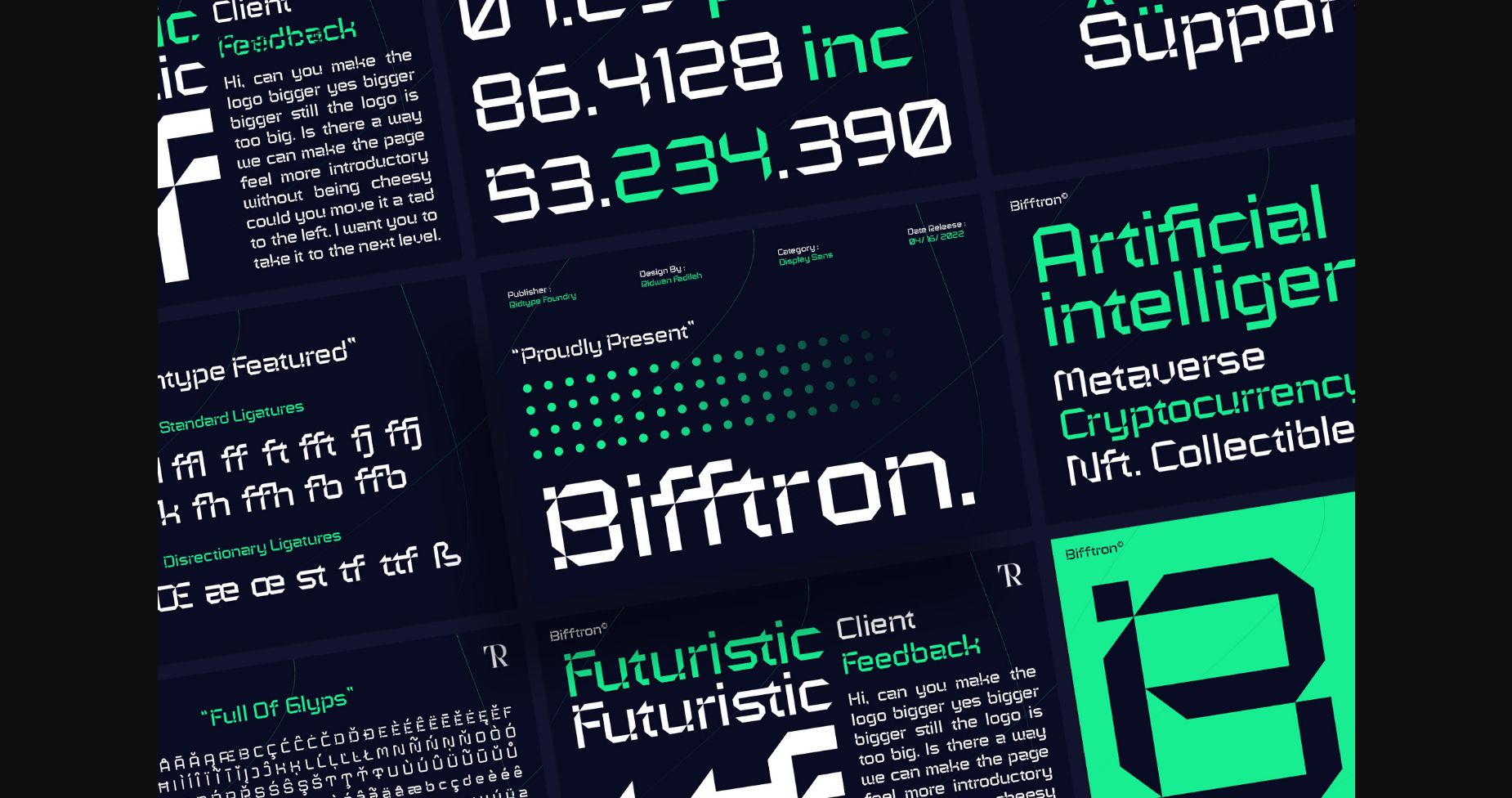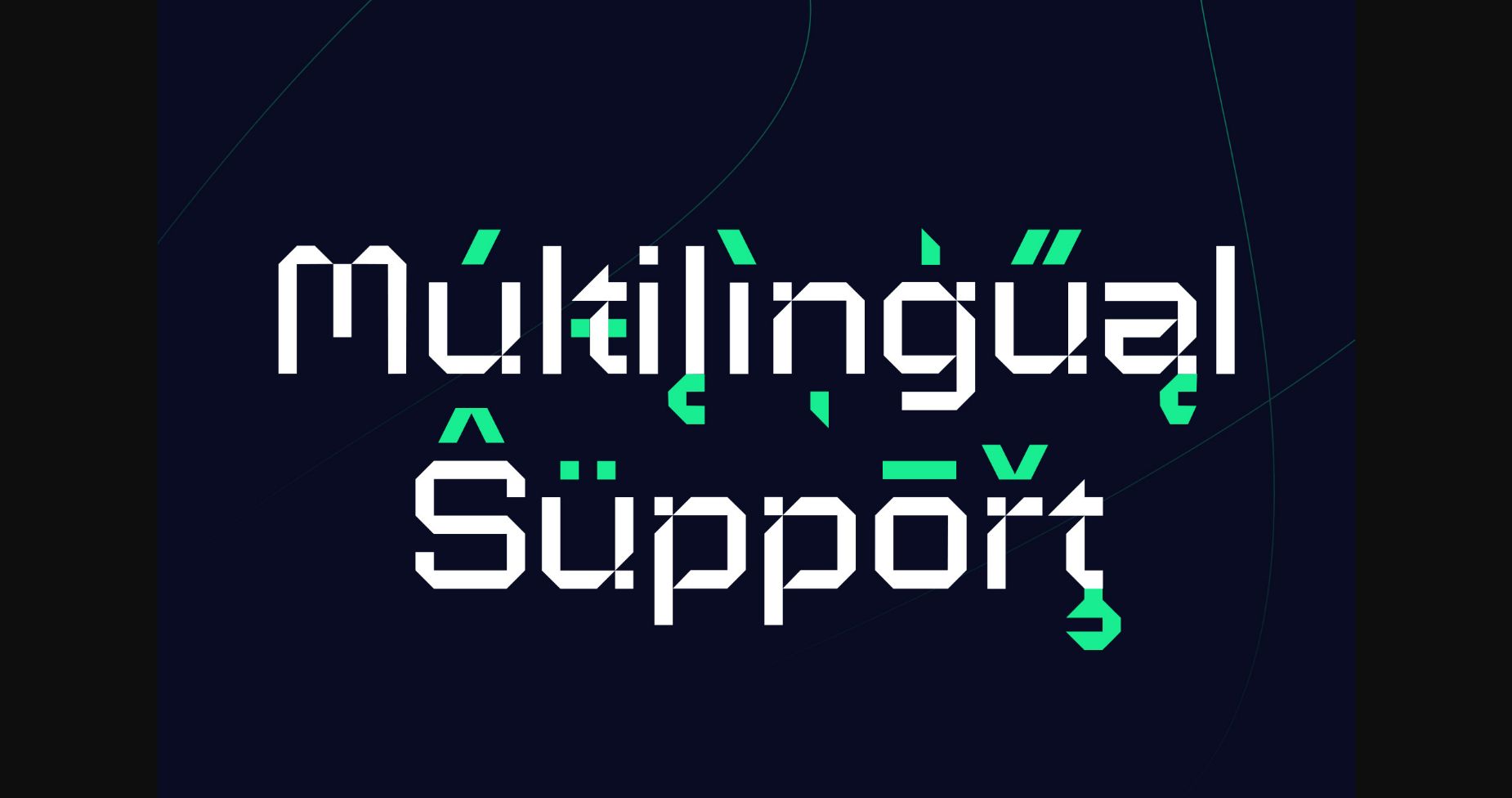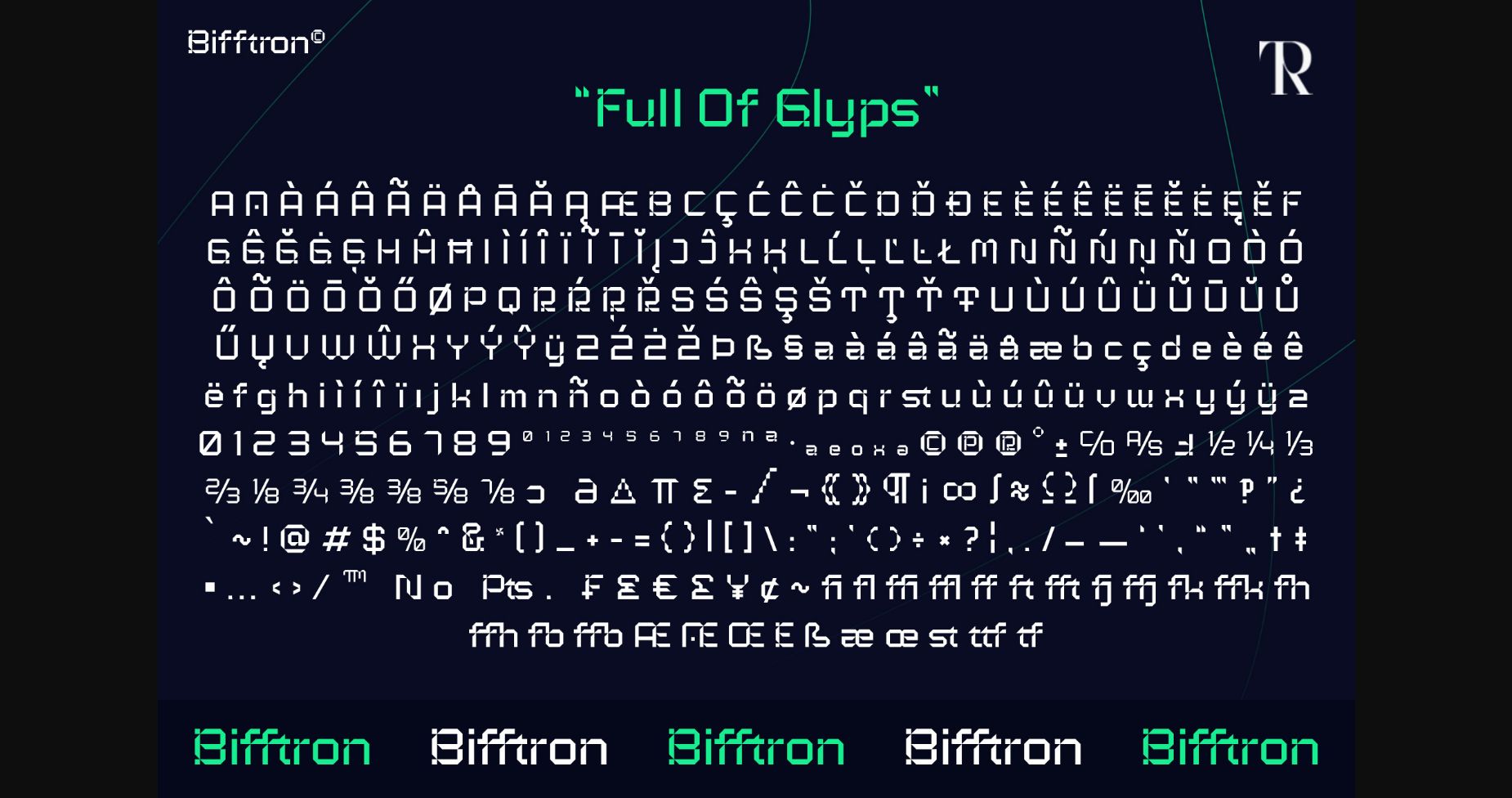
About Bifftron Font
Bifftron is a futuristic Modern Sans Serif with a geometric touch. This display font is great for logo design, and posters and it will make a statement in your designs.